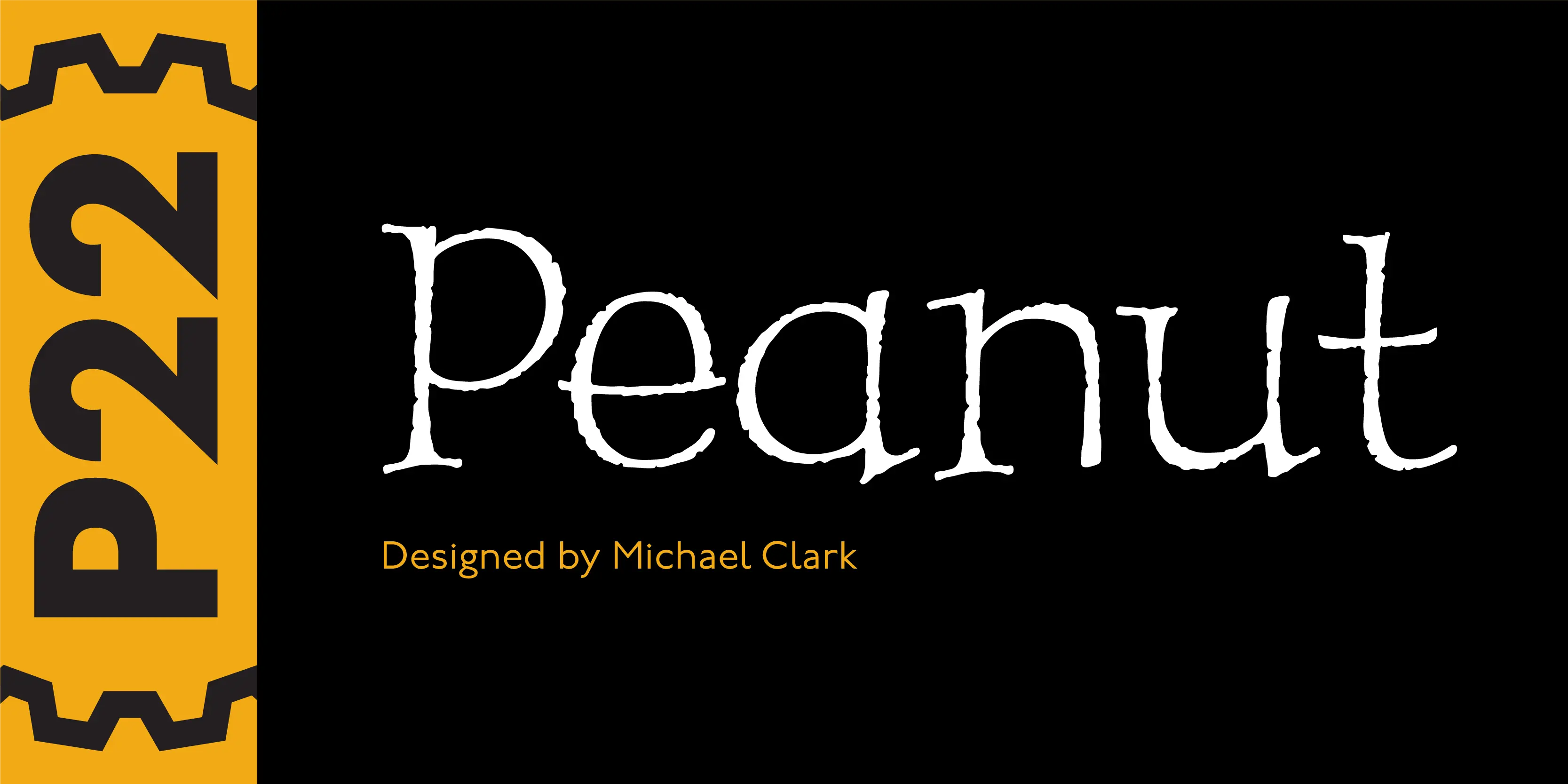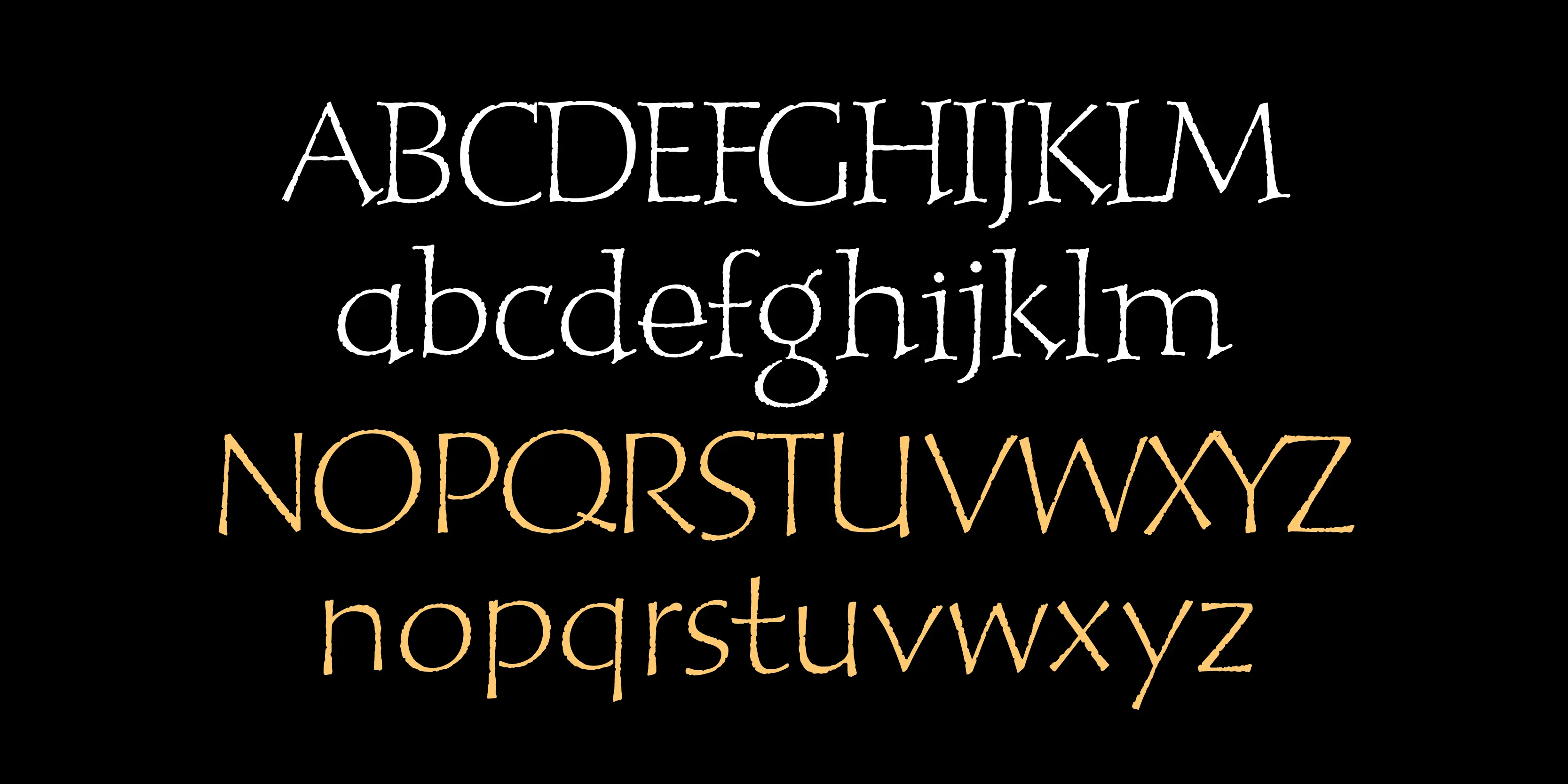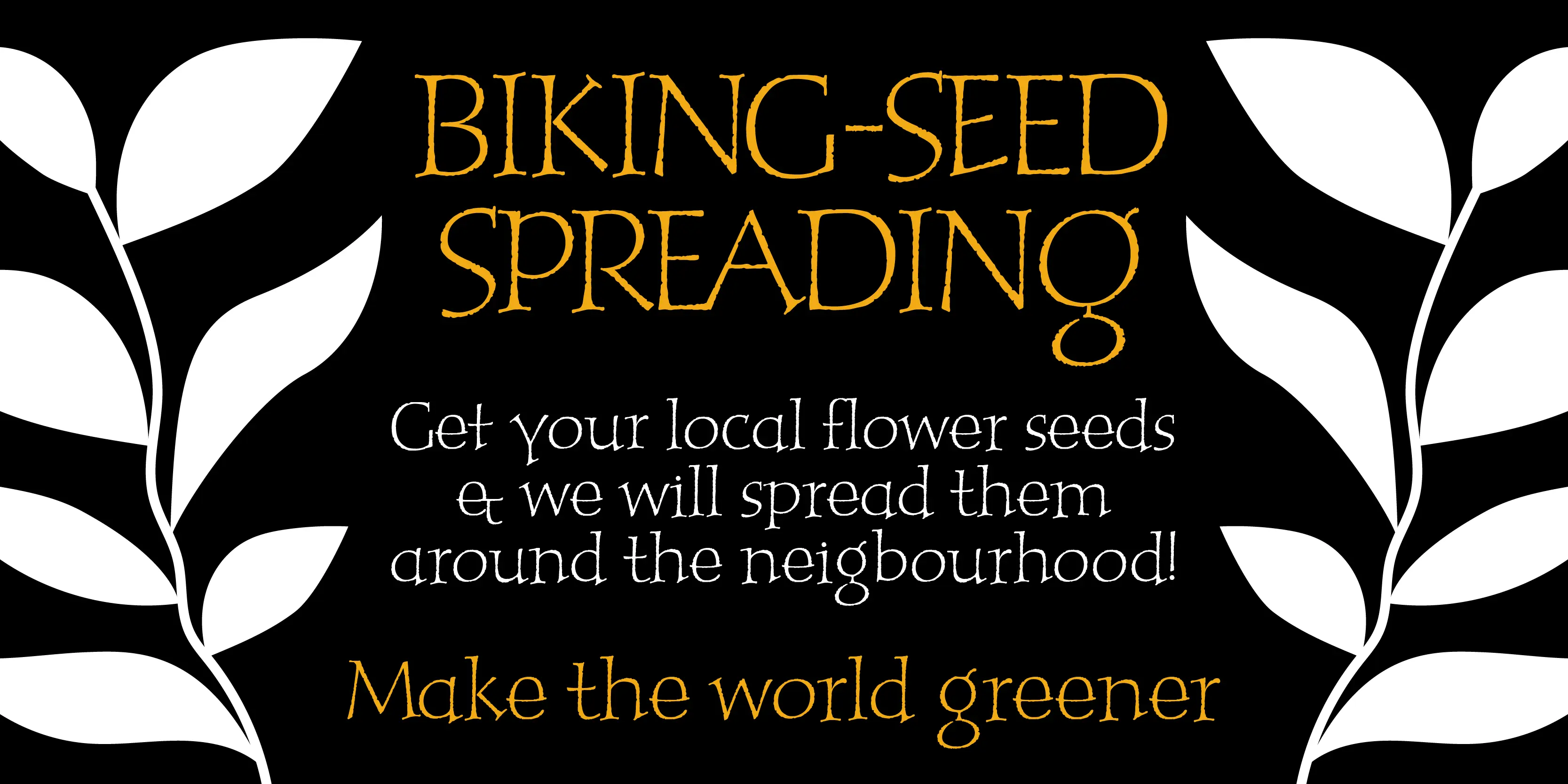
Peanut Font Family
Peanut
Peanut is a face full of bounce and playfulness but is based on the traditions of the long revered Roman minuscule. The letters are unique in that they imply “youth” without relying on cliché child-like letterforms. Peanut and Peanut Sans come in a ‘Salted’ style which features many alternate letterforms. Both the Salted and regular styles are combined into in the Pro fonts.
• Character Variants
• Fractions
• Subscript
• Superscript
• Swashes